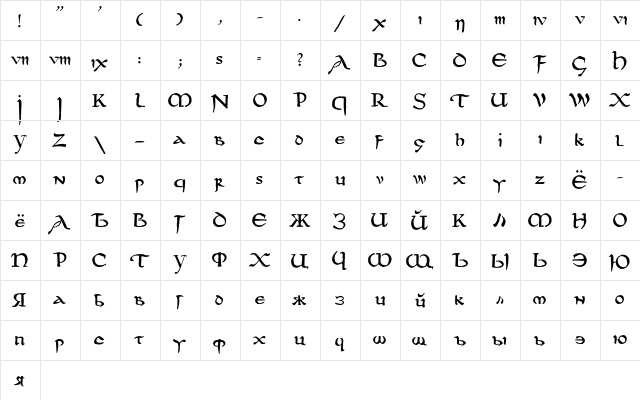
DS UncialFunnyC Regular
Design Context for DS UncialFunnyC Typeface
DS UncialFunnyC has an approachable, lighthearted character — its loose, expressive forms are well-suited to children's content, casual branding, and fun-first design.
Font Pairing: Pairs well with a rounded or humanist sans for body copy, maintaining the friendly tone without relying on DS UncialFunnyC to carry extended reading.
Pro Tip: Use DS UncialFunnyC at larger display sizes where its expressive character can land. Pair with a clean, simple sans for body copy to maintain readability.